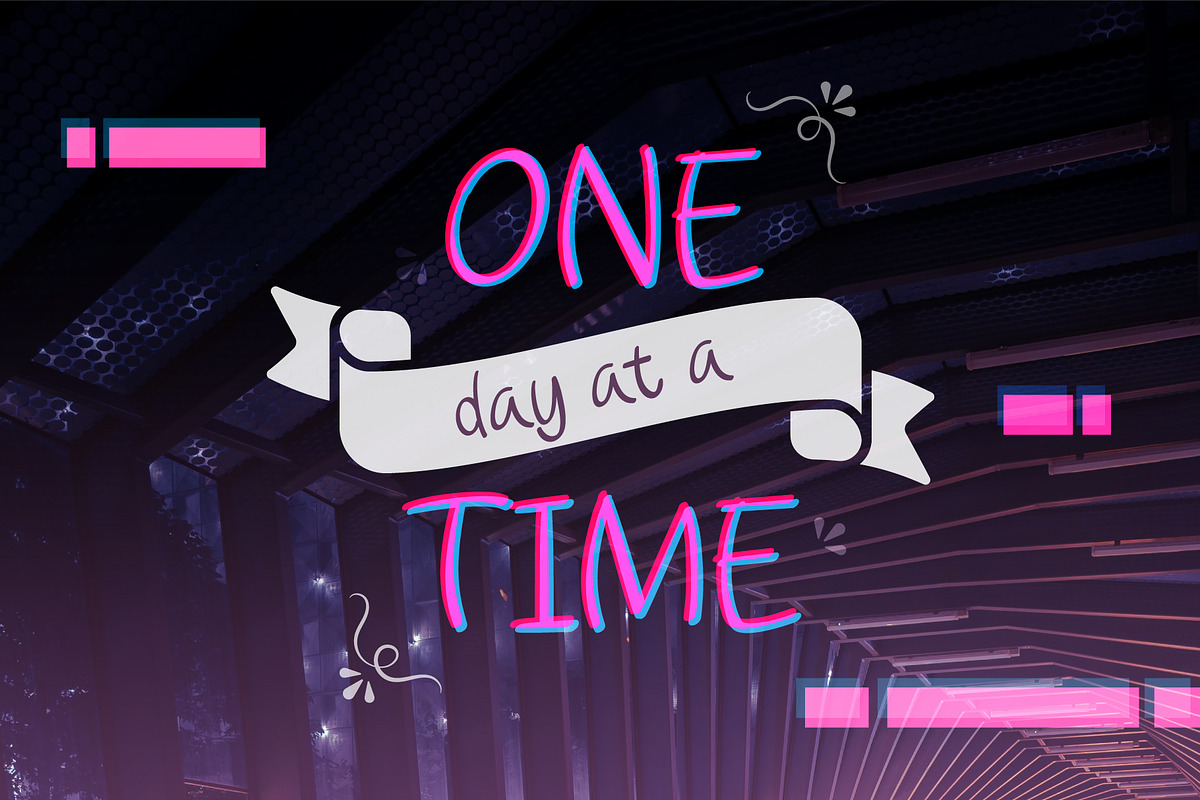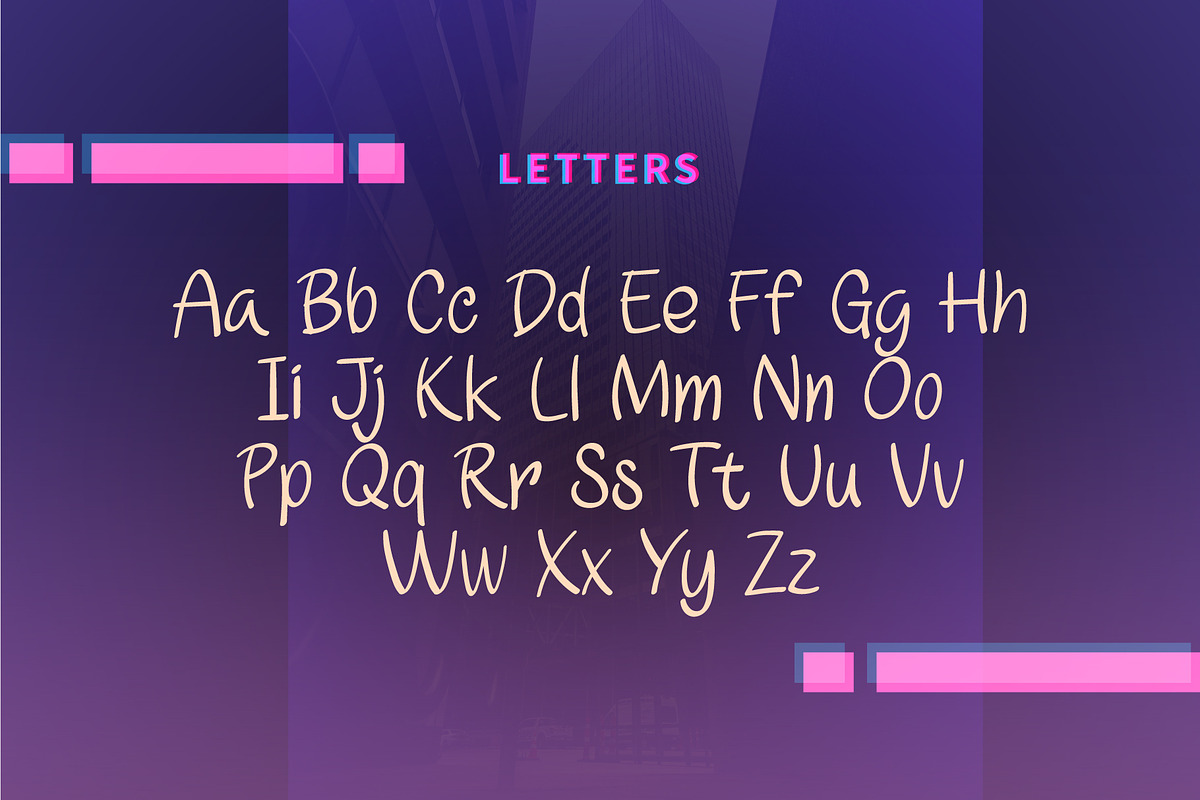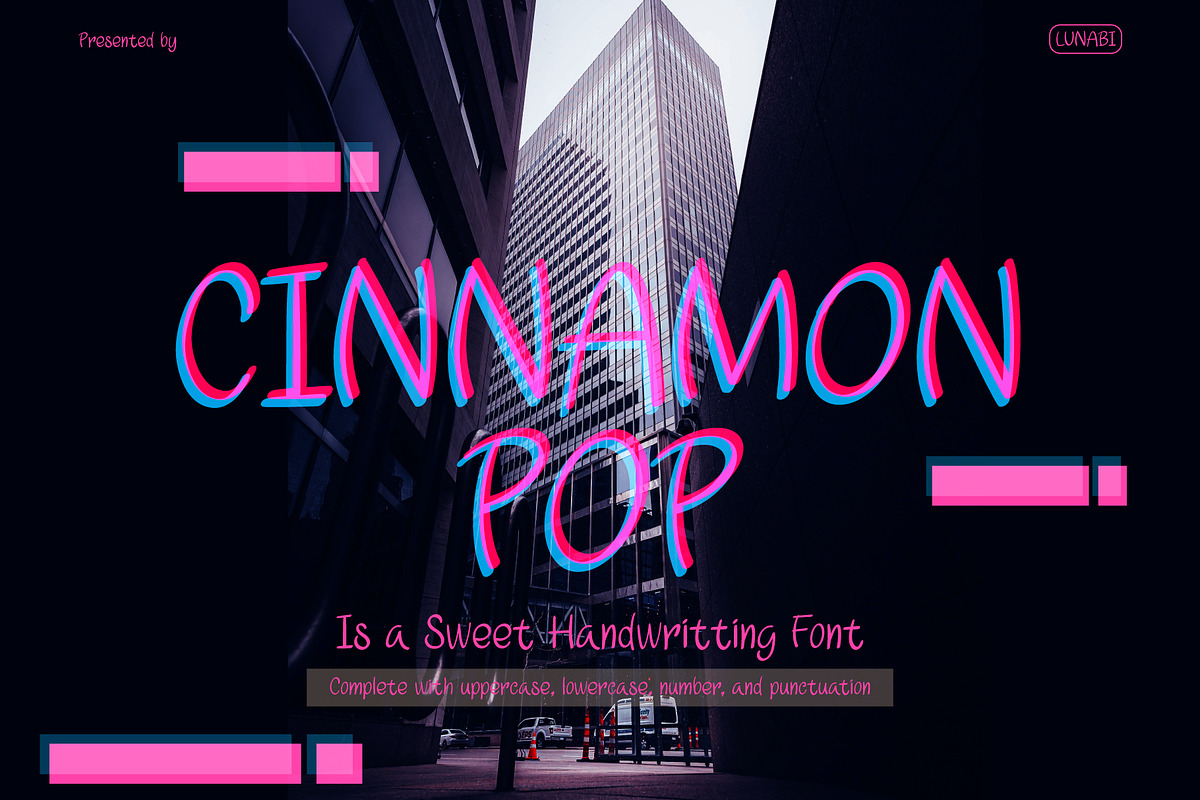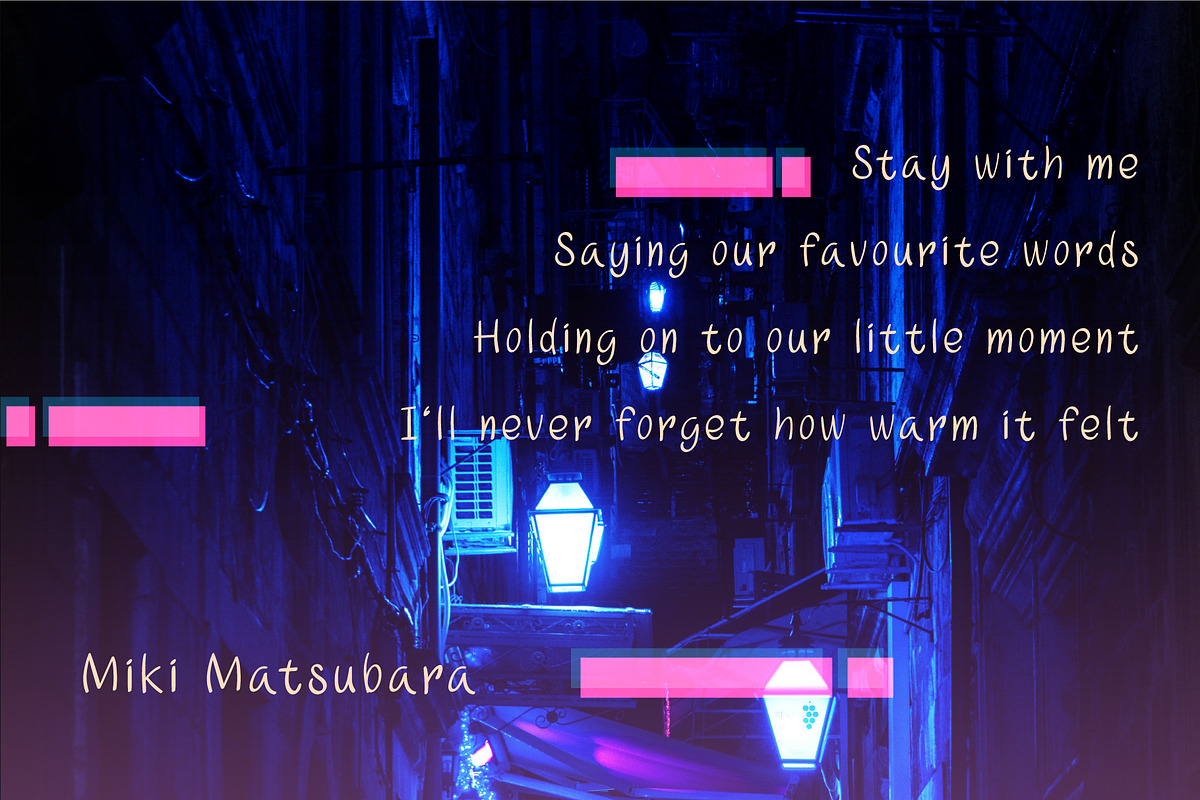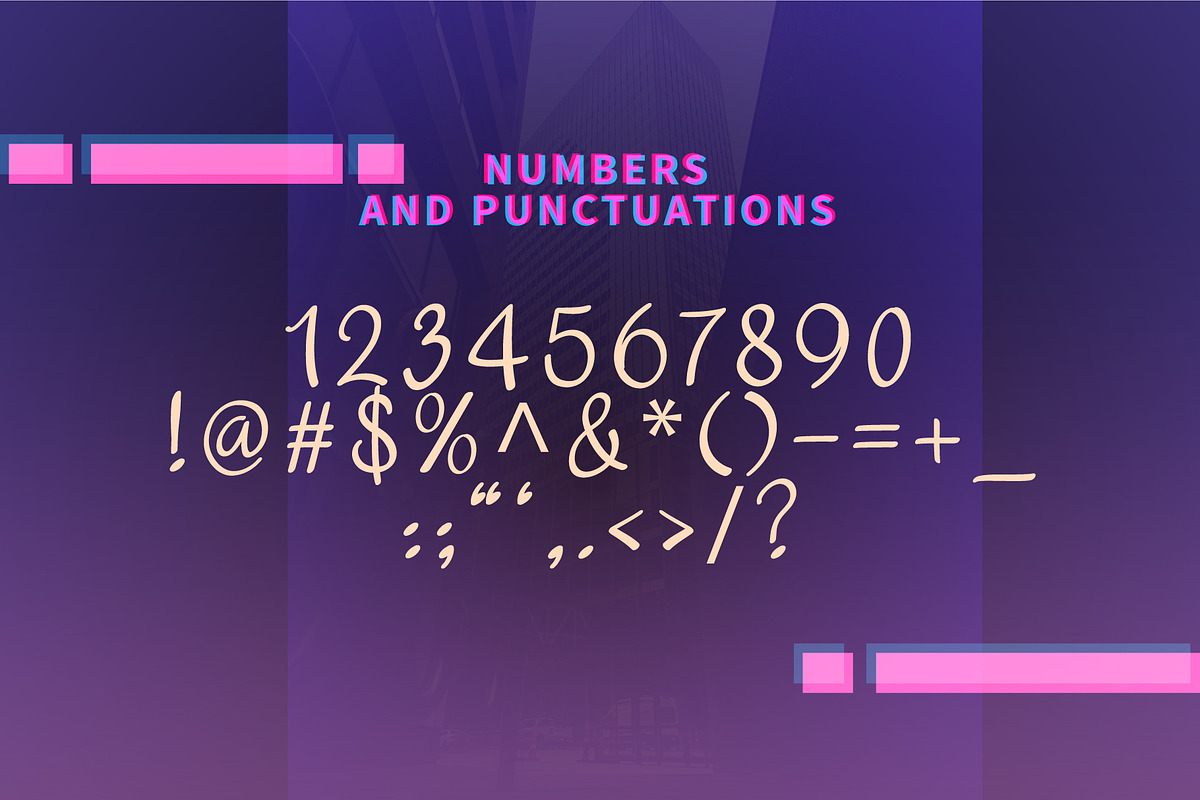
Cinnamon Pop
Cinnamon Pop is a sweet handwriting font.
They are perfect to use for: logos, branding, home decor, signs, mugs, shirts, pantry labels, stickers, greeting cards, posters, social media, planner prints, and etc. Just have a great fun with Cinnamon Pop on your design!